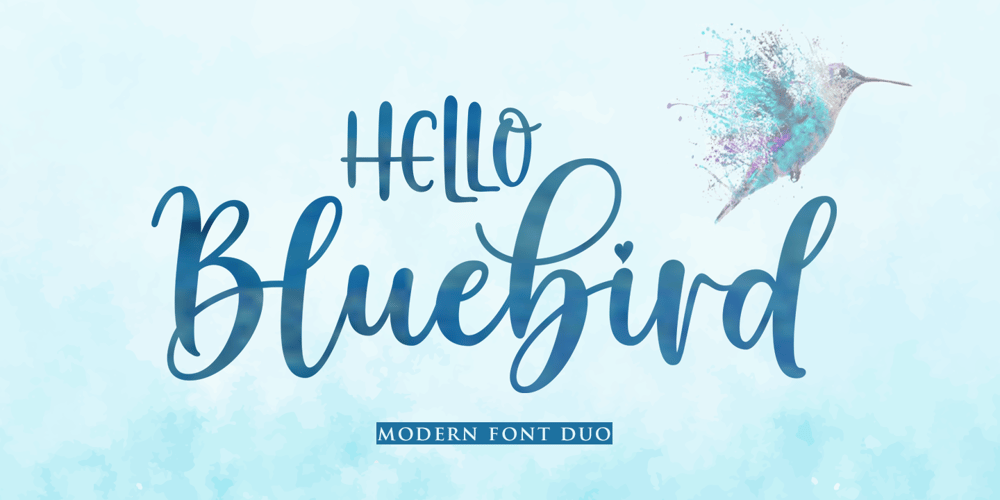
Hello Bluebird Font Duo Font Family was designed by Muhammad Taufik and published by Rastype Studio. Hello Bluebird Font Duo contains 2 styles and family package options. Hello Bluebird Script and Sans are beautiful and romantic writing fonts. Looks amazing on wedding invitations, thank you cards, quotes, greeting cards, logos, business cards and any other design.This font is PUA encoded which means you can access all glyphs and swashes with ease!The font includes OpenType features with alternative styles, ligatures, and multiple language support.To enable OpenType Stylistic alternates, you need a program that supports OpenType features such as Adobe Illustrator CS, Adobe Indesign & CorelDraw X6-X7, Microsoft Word 2010 or a later version.There are additional ways to swap / swap, using the Character Map (Windows), Nexus Fonts (Windows), Font Book (Mac) or a software program like PopChar (for Windows and Mac).How to access all alternative characters, using Windows Character Map with Photoshop: https://www.youtube.com/watch?v=Go9vacoYmBwHow to access all alternative characters using Adobe Illustrator:http://youtu.be/iptSFA7feQ0How to use a stylish font set in Microsoft Word 2010 or later versions:https://youtu.be/x1A_ilsBsGs